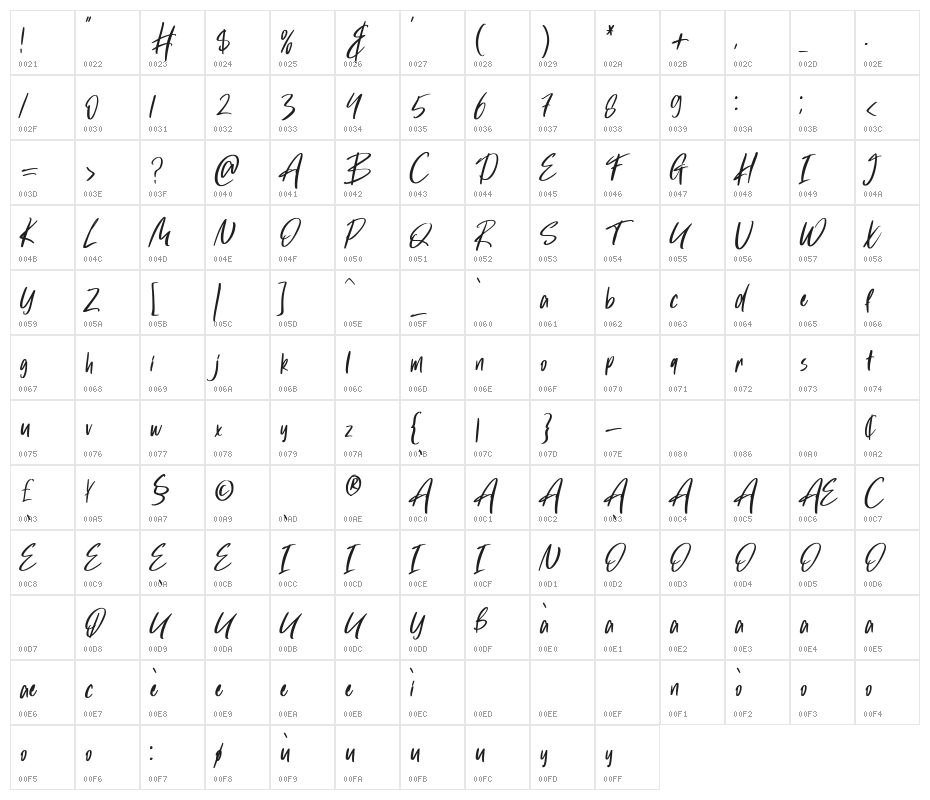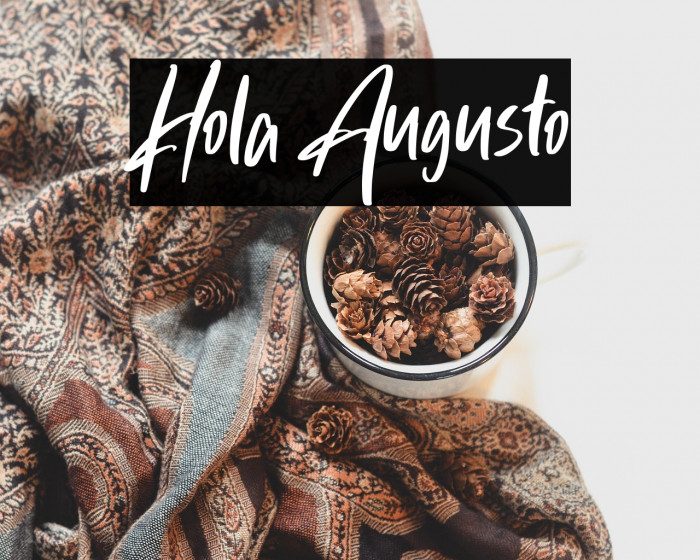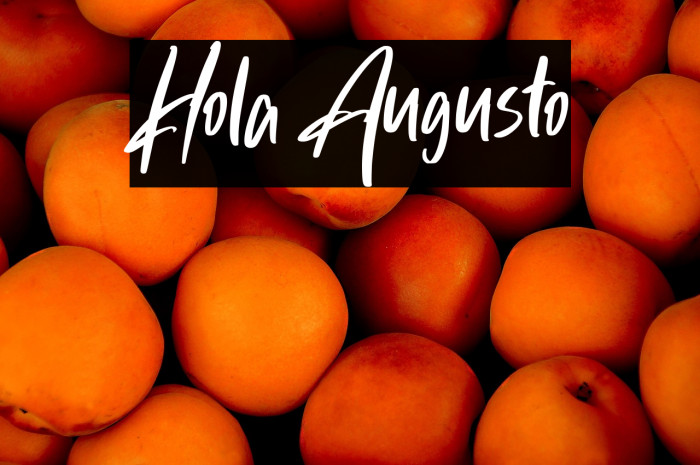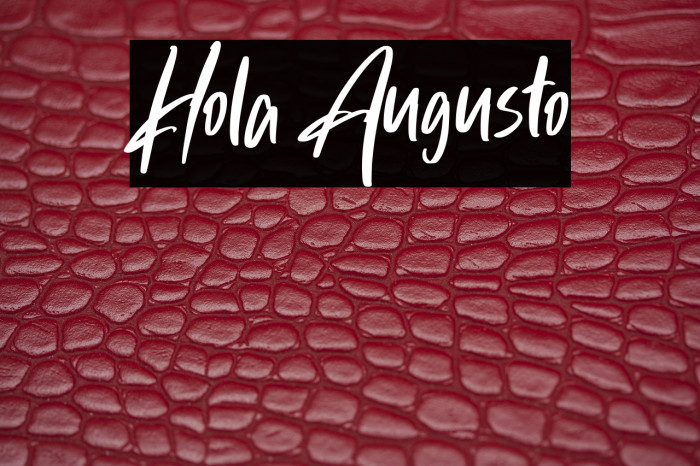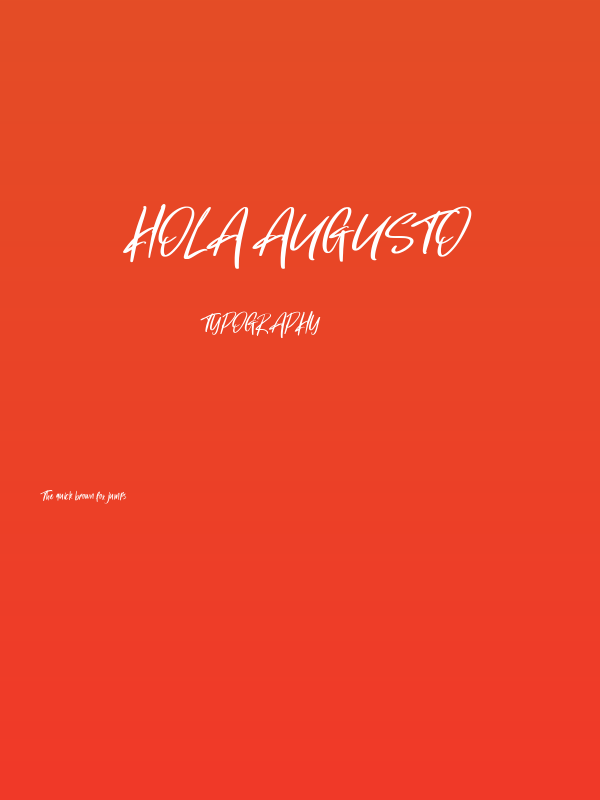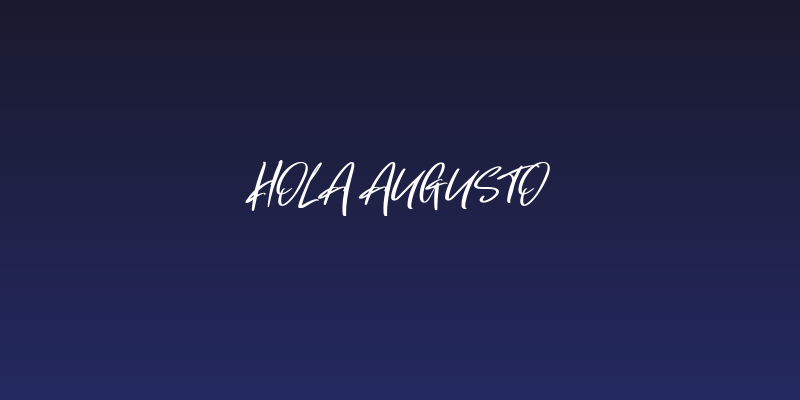
Hola Augusto Font
Hola Augusto Description
This font features a dynamic and expressive handwritten style, characterized by its fluid and energetic strokes. The uppercase letters are bold and slightly slanted, giving a sense of movement and flair. The lowercase letters maintain a consistent flow, complementing the uppercase with a more compact form. Numbers are designed with the same lively touch, ensuring uniformity across all characters. Special characters are crafted to match the overall aesthetic, making them suitable for creative and informal designs. The font's playful yet sophisticated appearance makes it ideal for projects that require a personal and artistic touch.